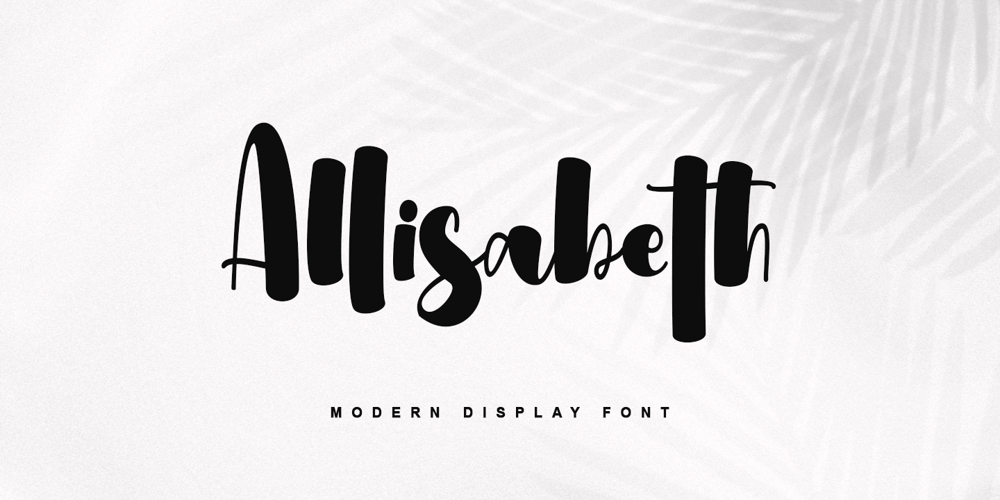
Allisabeth
Allisabeth font
Allisabeth Font Family was designed by Thomas Aradea and published by Letterara. Allisabeth contains 2 styles and family package options. Allisabeth is a bold script font that is simple and unique looking. Its casual charm makes it appear wonderfully down-to-earth, readable, and, ultimately, incredibly versatile. This will add a fun and friendly touch to any of your projects! This font is PUA encoded which means you can access all glyphs and sweeps easily.